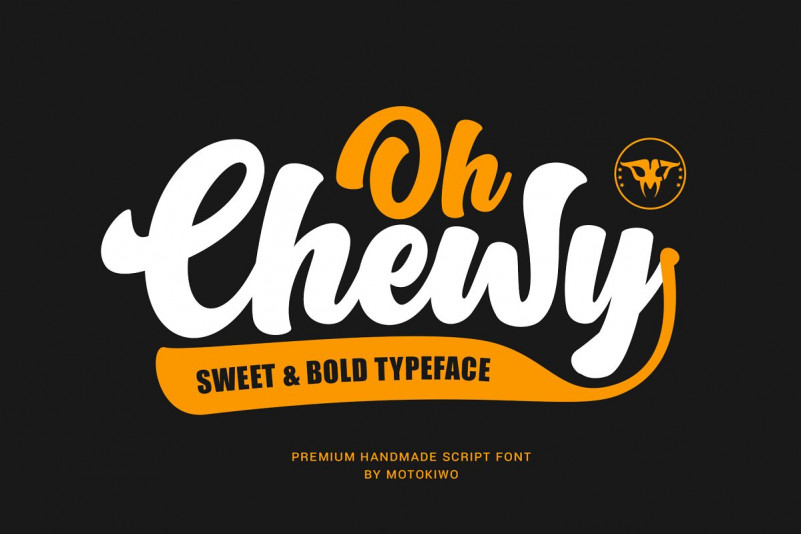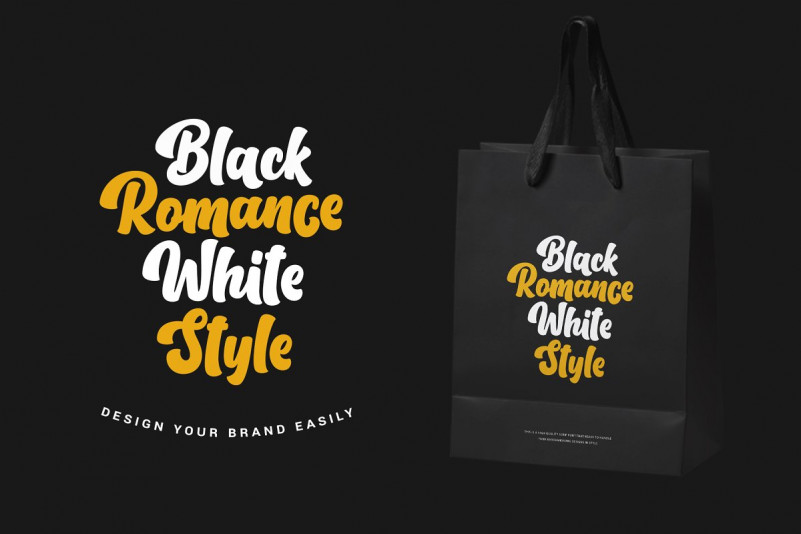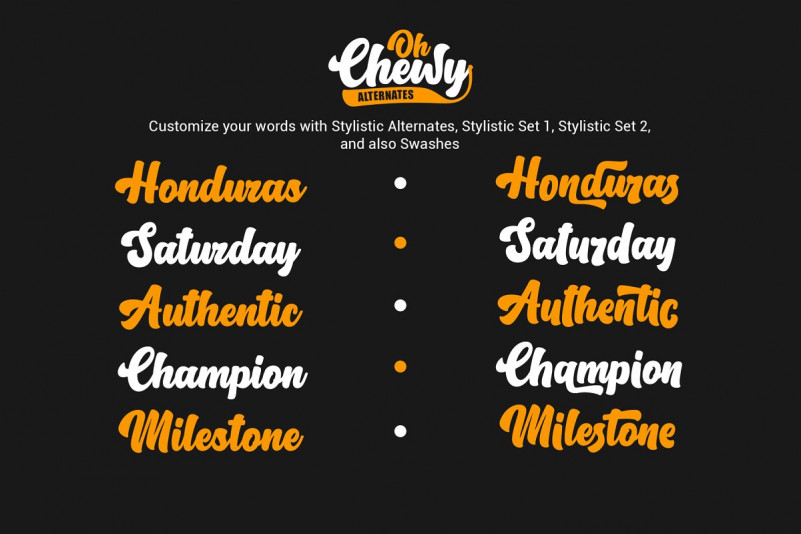
Oh Chewy Font
Oh Chewy… a sweet bold script font with alternates and lovely swashes. It has fat strokes and smooth edge, that’s great for food branding, retro style, and eye-catching logo.